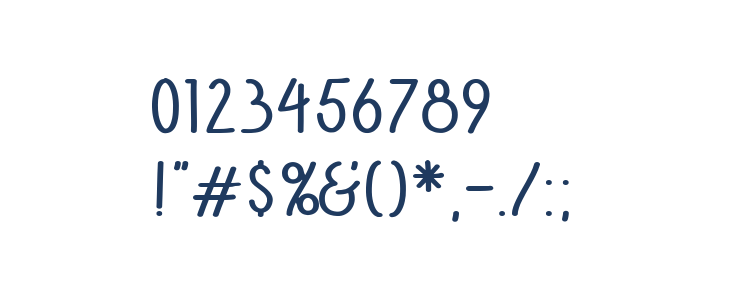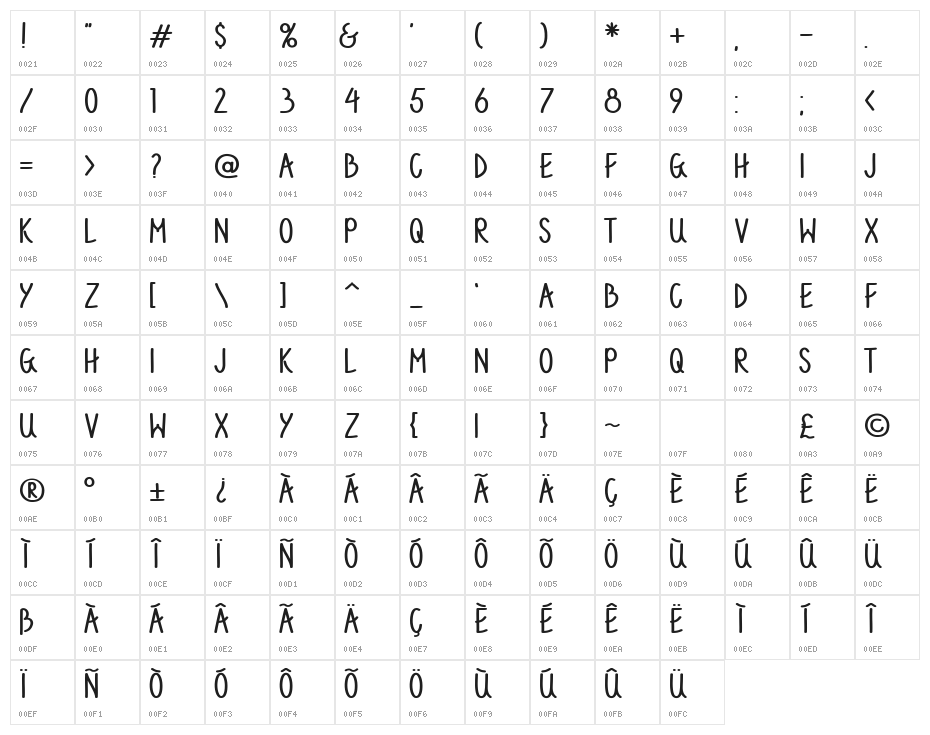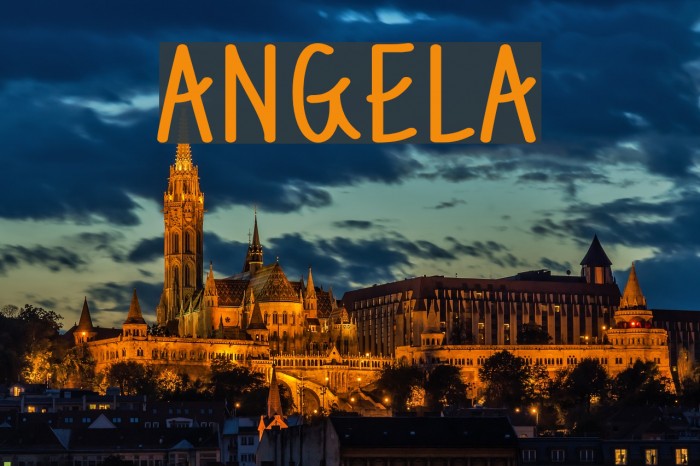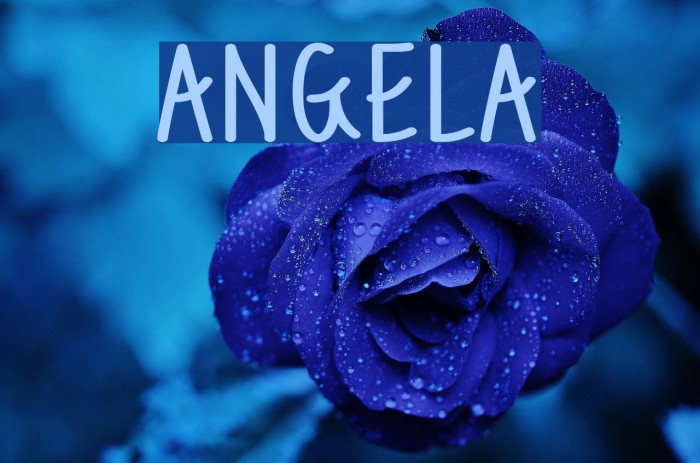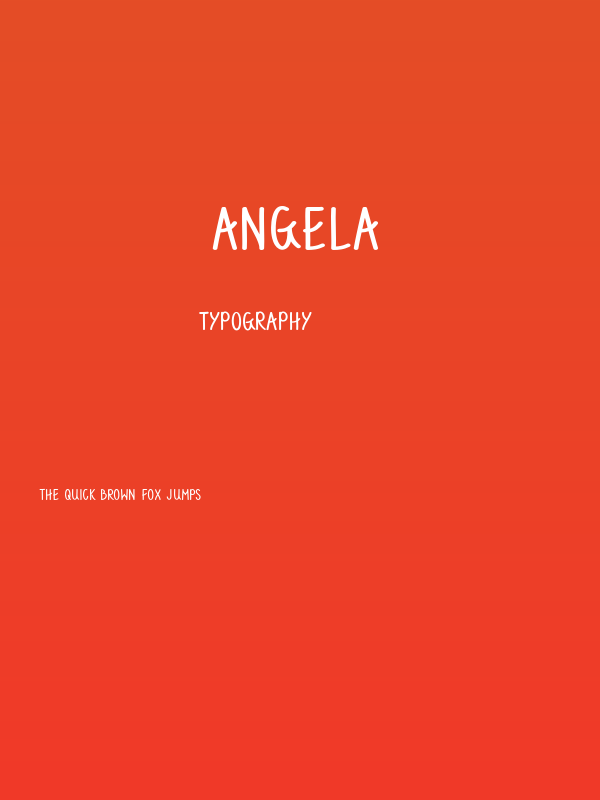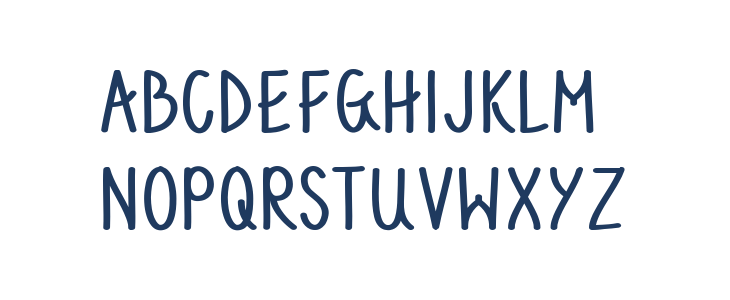
Angela Font
Angela Description
This font features a playful and casual handwritten style, characterized by its rounded edges and smooth curves. The letters are slightly slanted, giving it a dynamic and informal appearance. The uppercase and lowercase letters maintain a consistent flow, with a uniform stroke width that adds to its legibility. The numerals and special characters are designed to match the overall aesthetic, making it versatile for various uses. Its friendly and approachable look makes it suitable for projects that require a personal touch.
| Use Case | Headlines, Logos, Social Media |
| Proposed Projects | Ideal for greeting cards, children's books, casual branding, and social media graphics. |